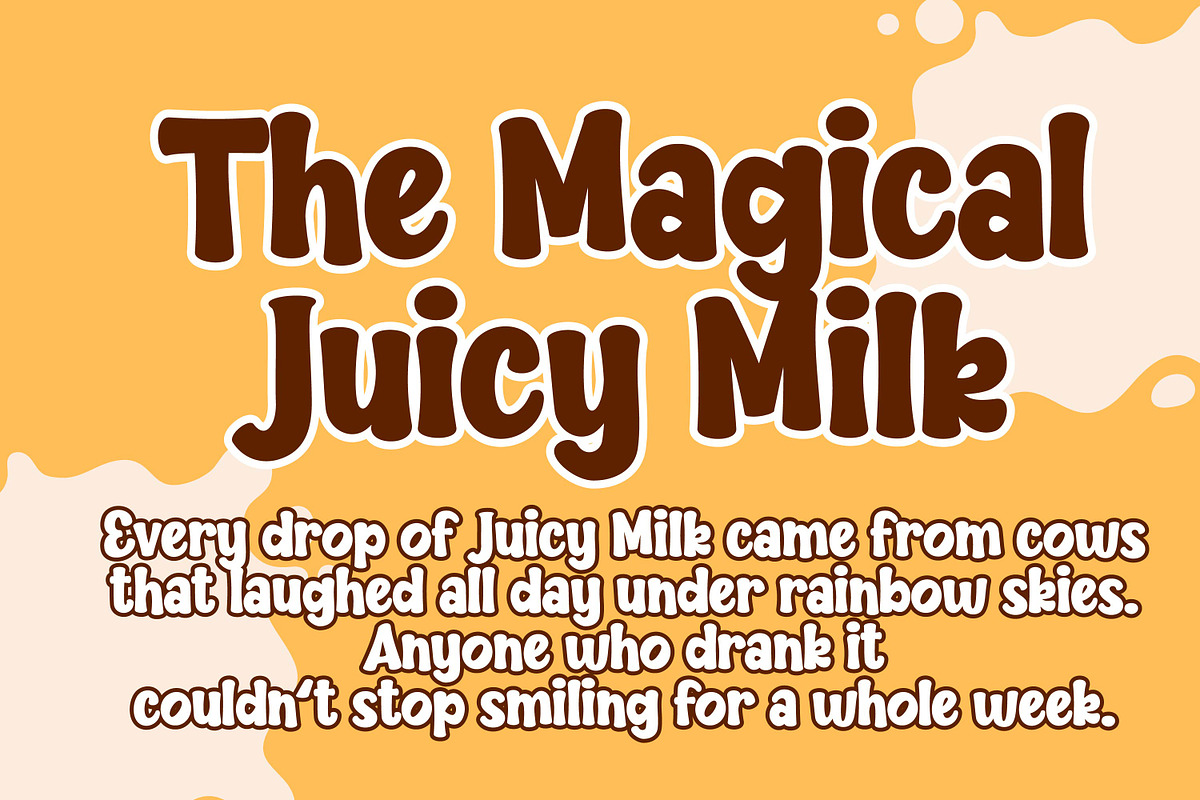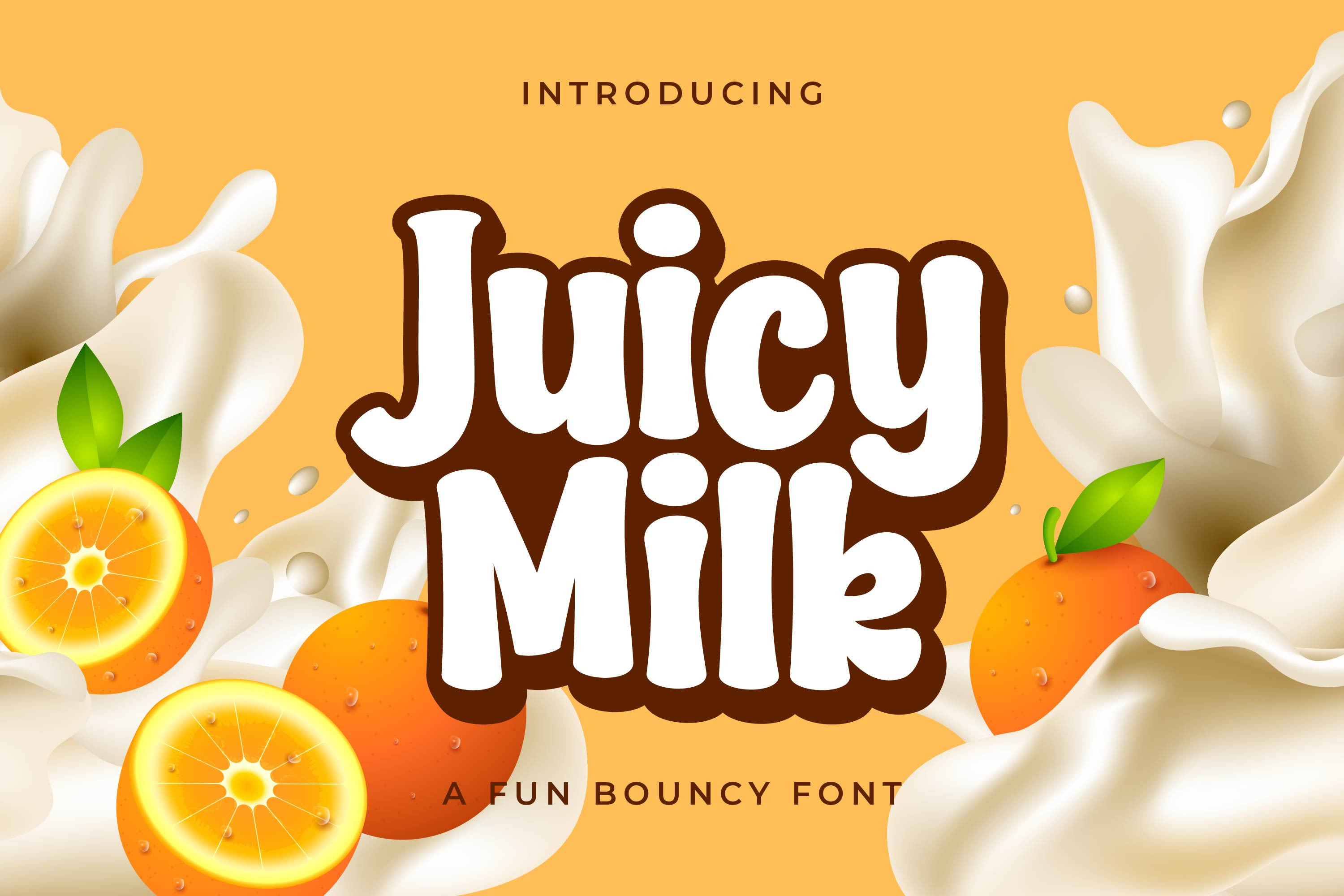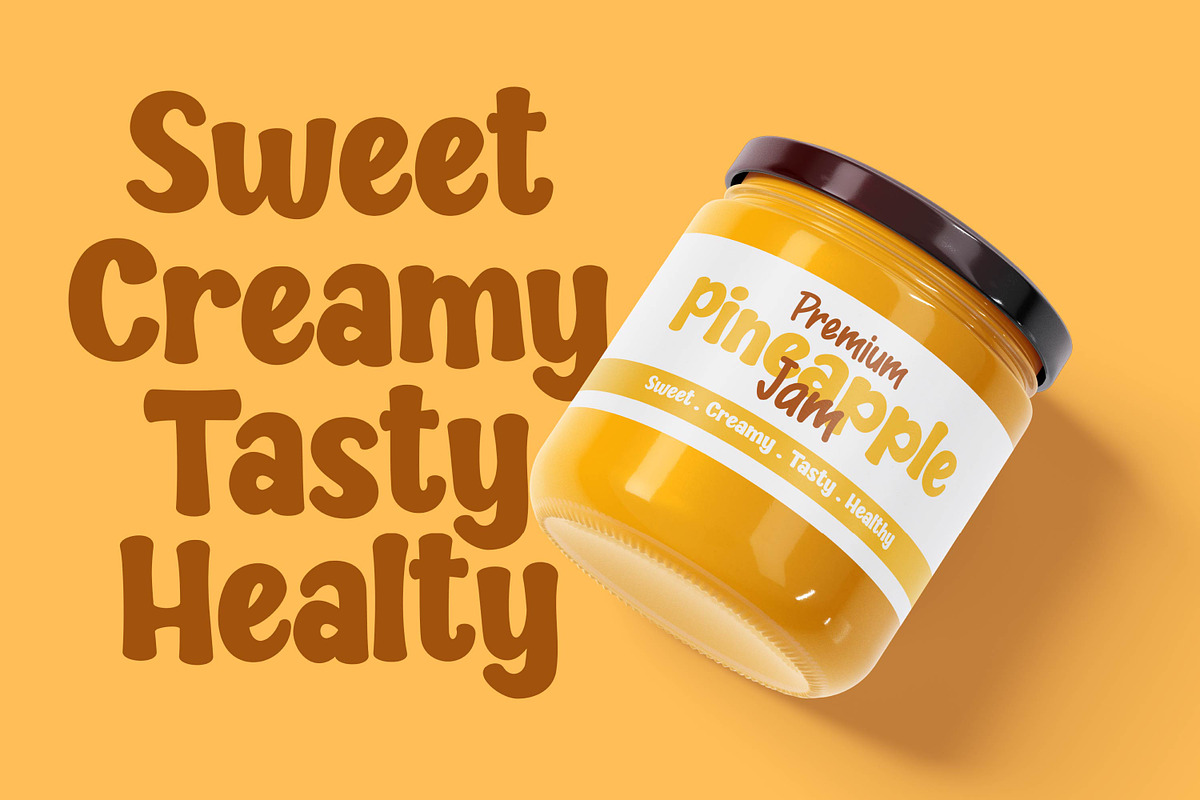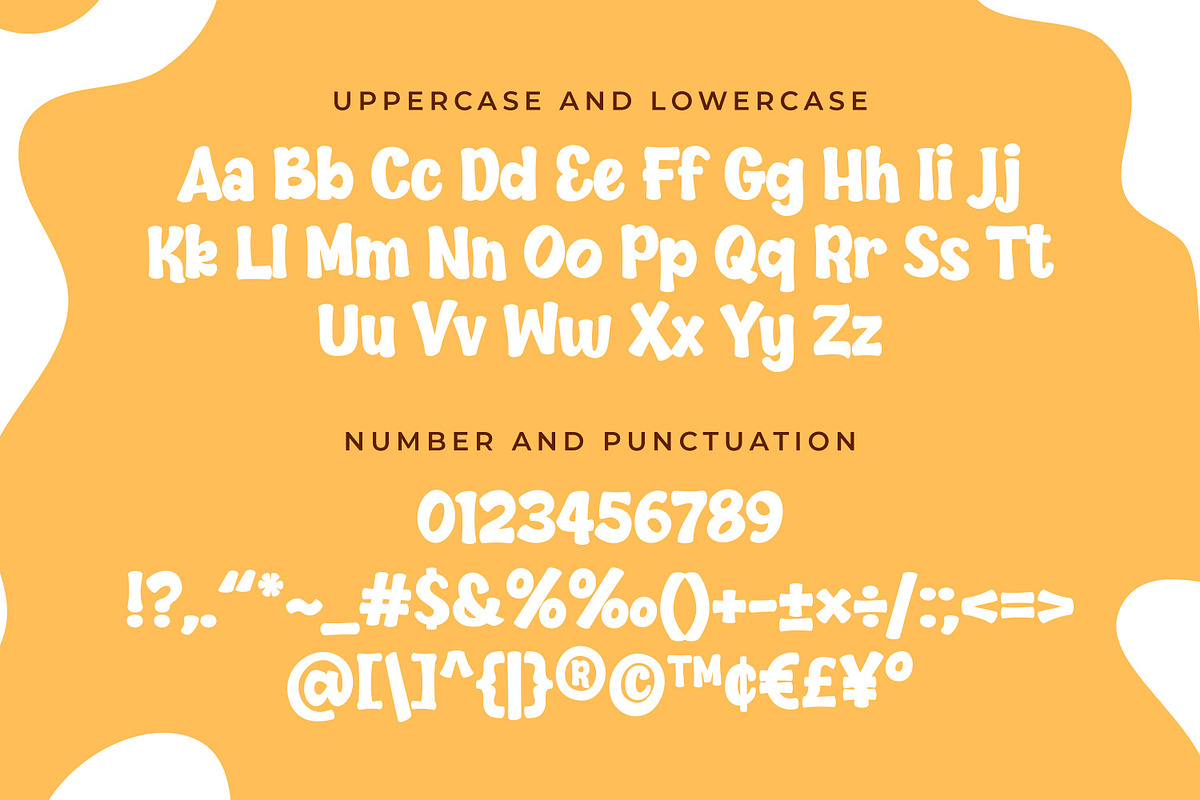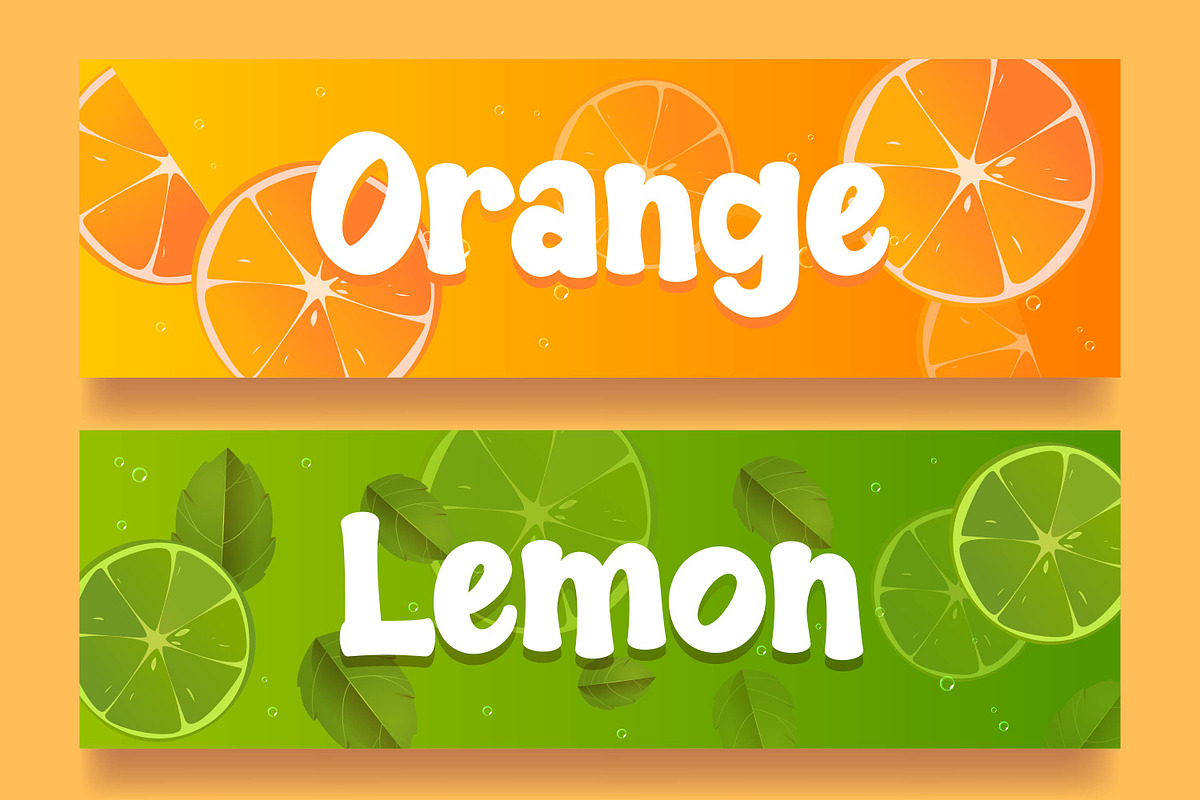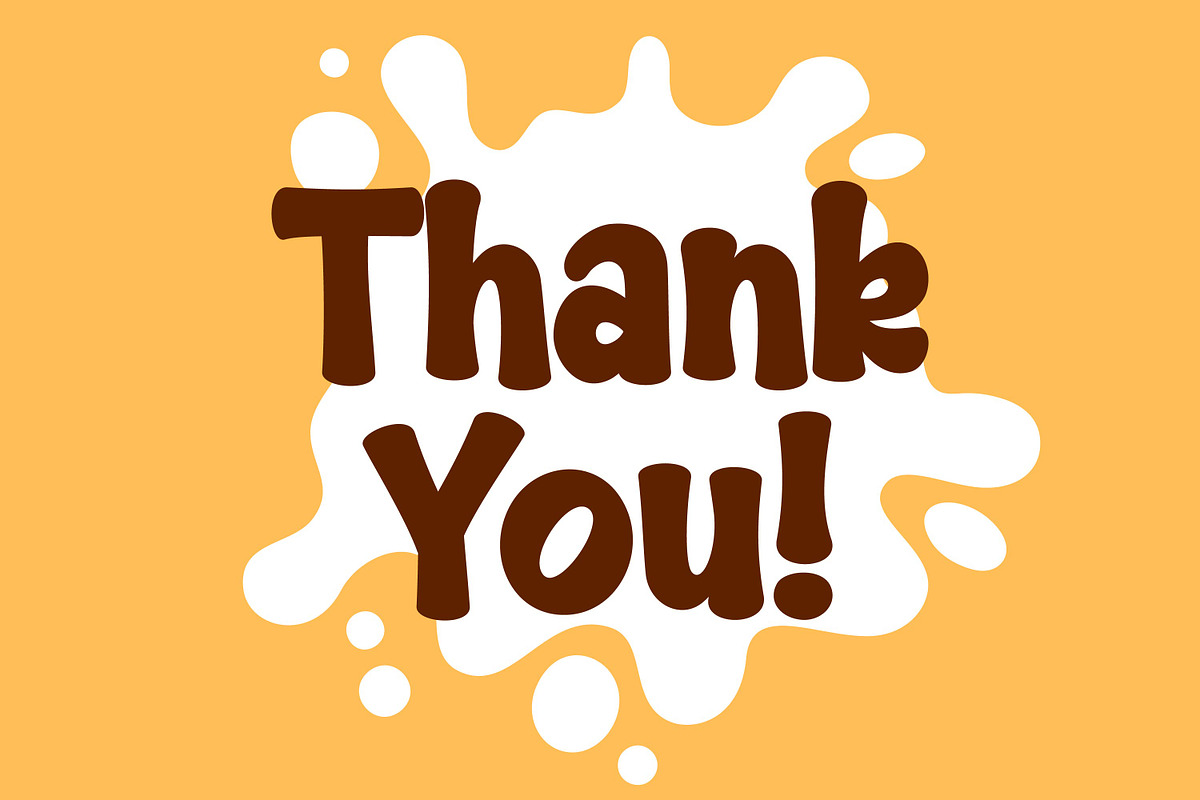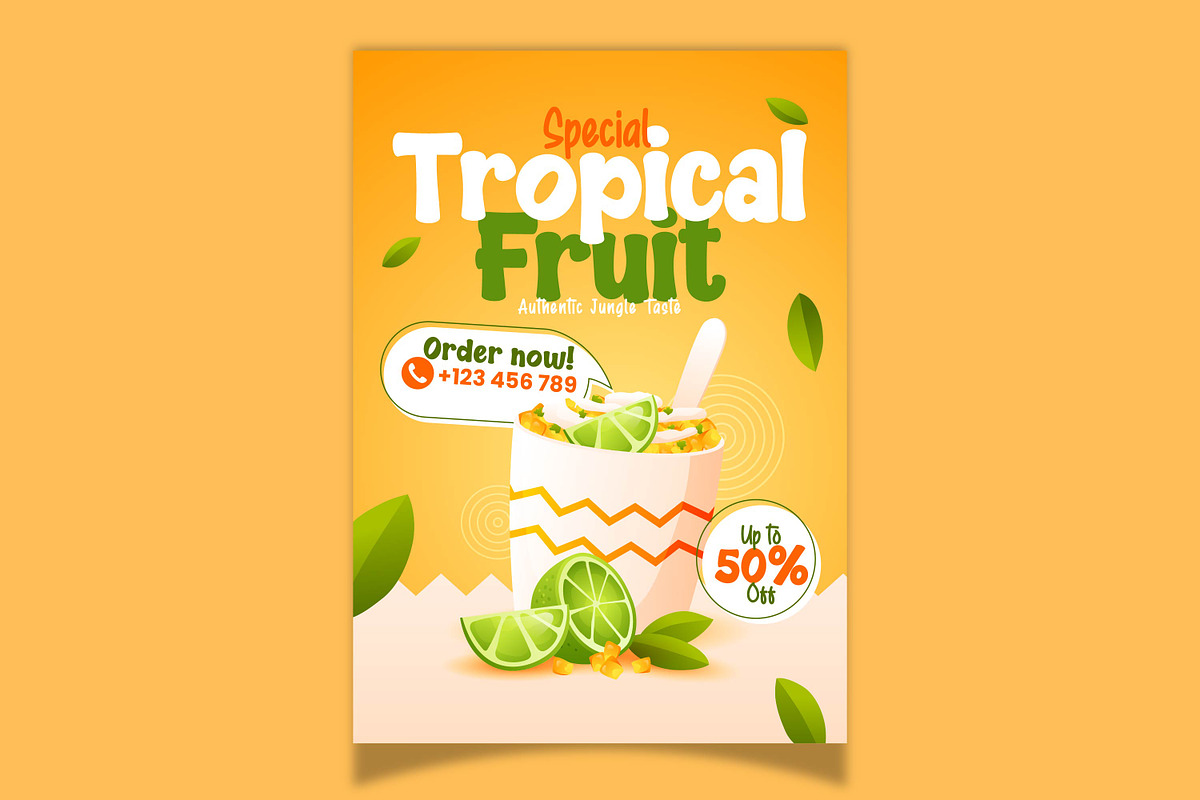
Juicy Milk - Fun Bouncy Font
Juicy Milk is a soft and lively font that feels full of life! With its rounded letters and bouncy rhythm, it brings a natural, cheerful tone to any project. Perfect for beverage packaging, branding, product labels, and playful social media content.